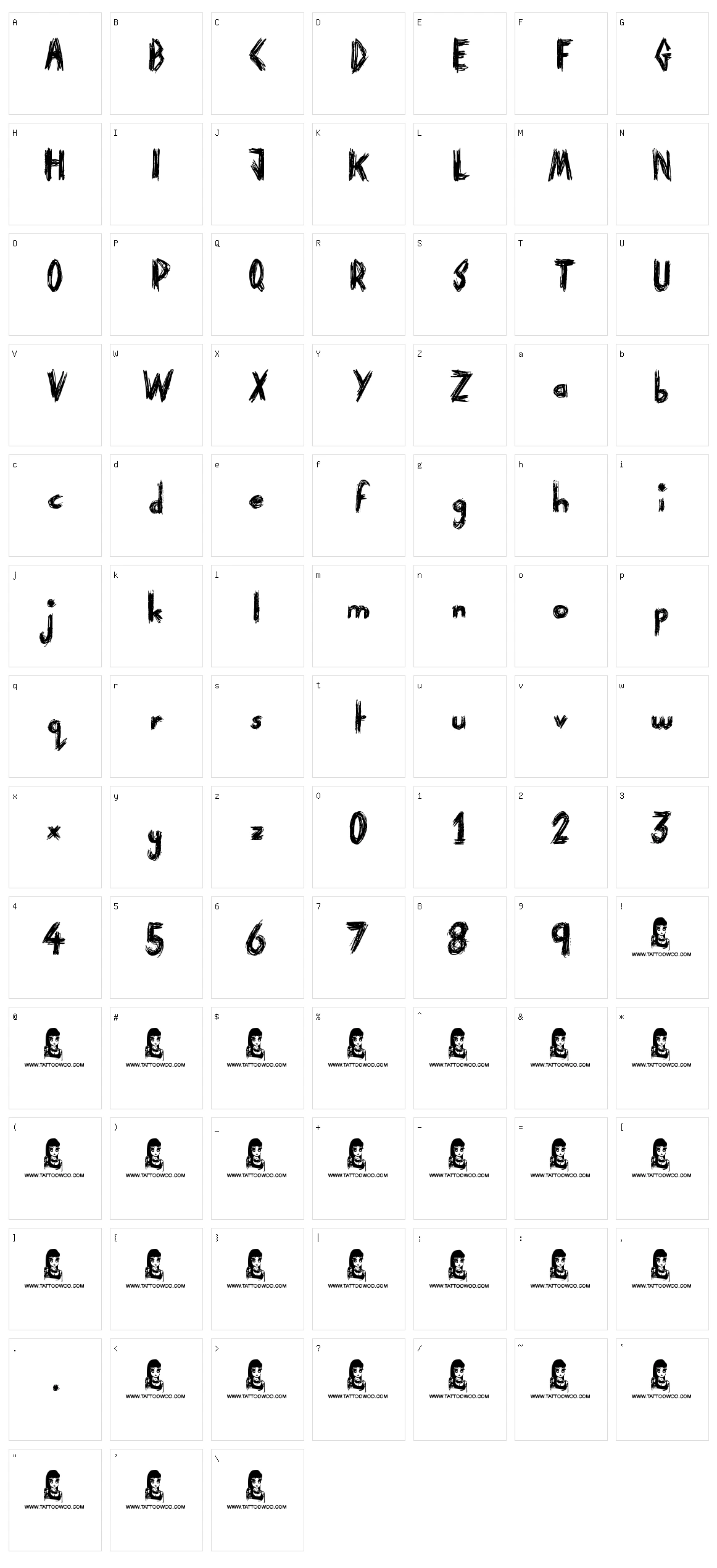
The free font Paranoid Freak is carefully designed by JSH creates, showcasing a thoughtful balance of creativity and usability and falls under the Horror font style. When you download the ZIP file, it contains only 183.83 KB of font files, making it lightweight and quick to download. Please review the license details below to understand permitted usage and distribution rights. If license information is not available, we recommend using this font for personal projects only or contacting the author directly for commercial usage permissions.